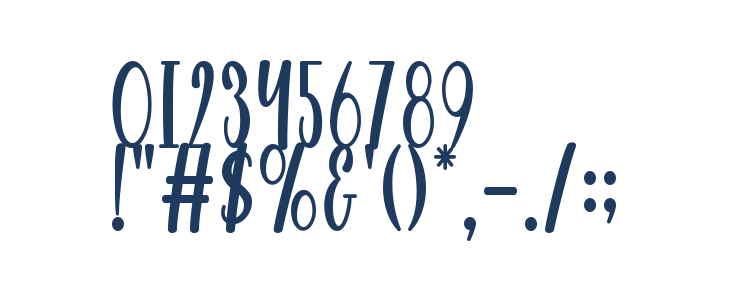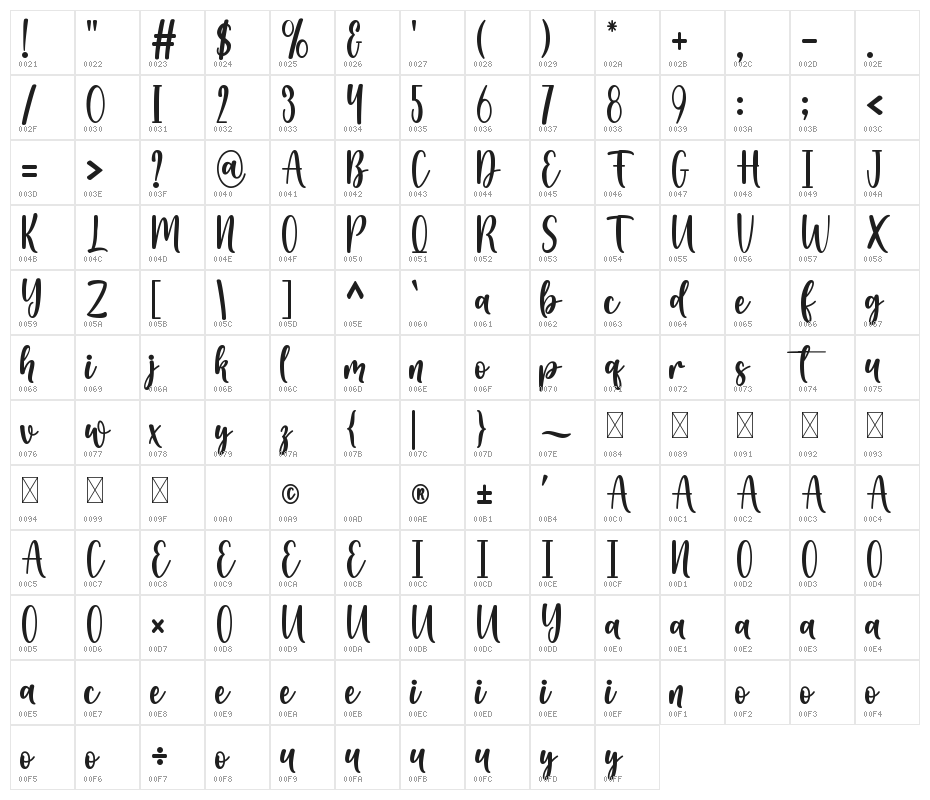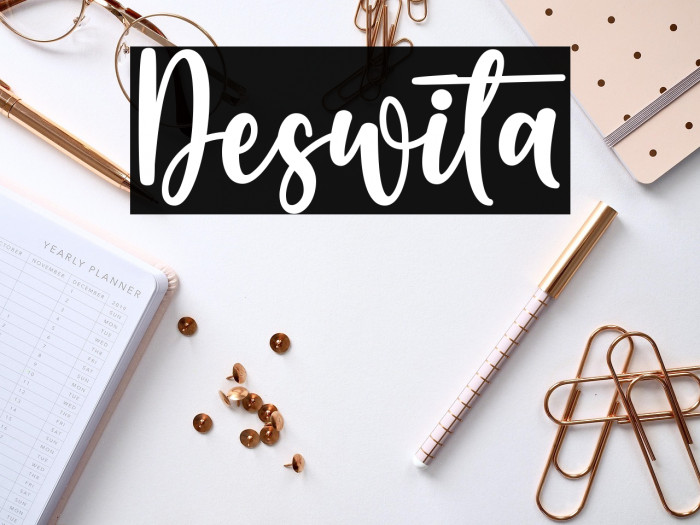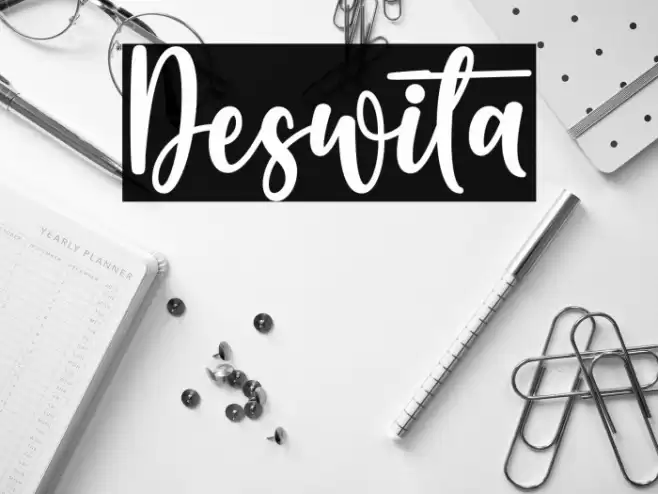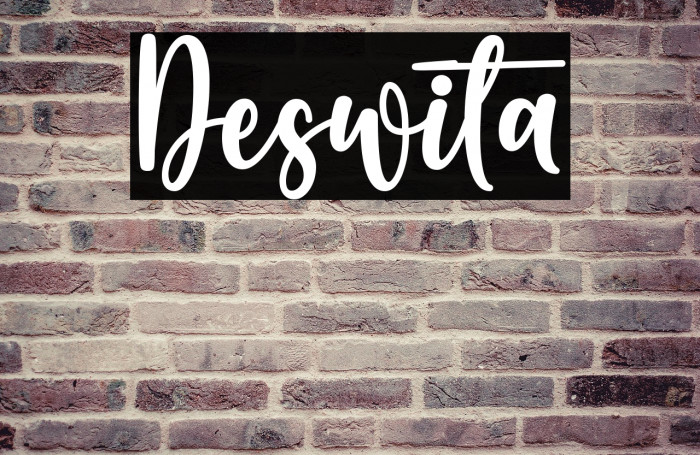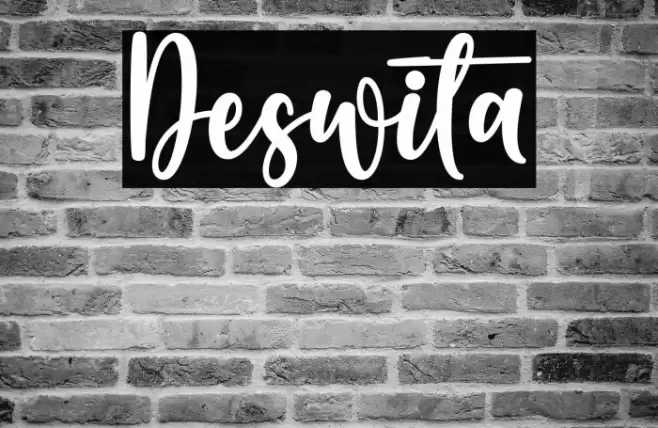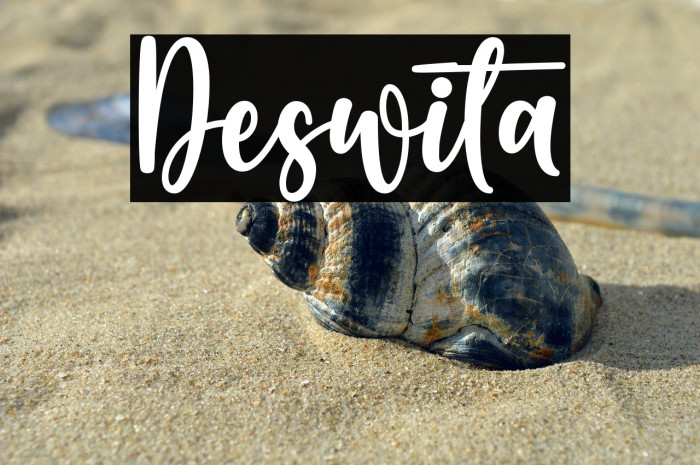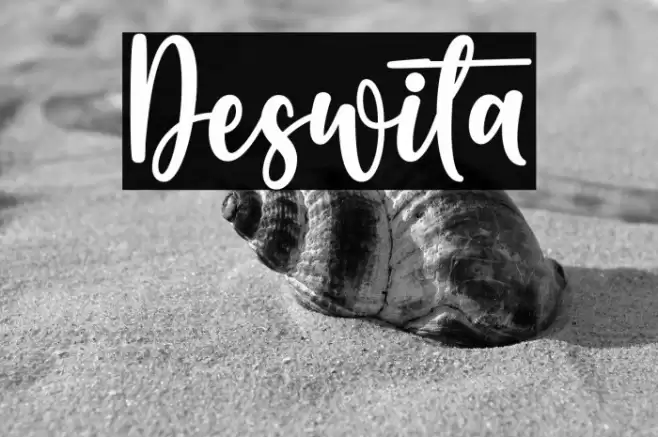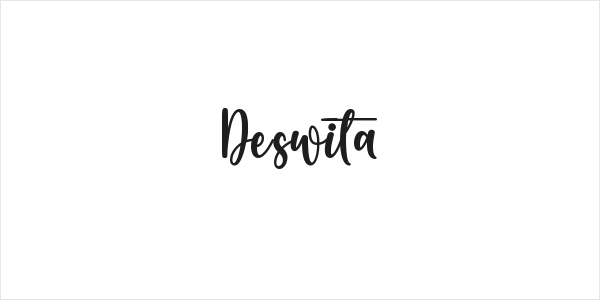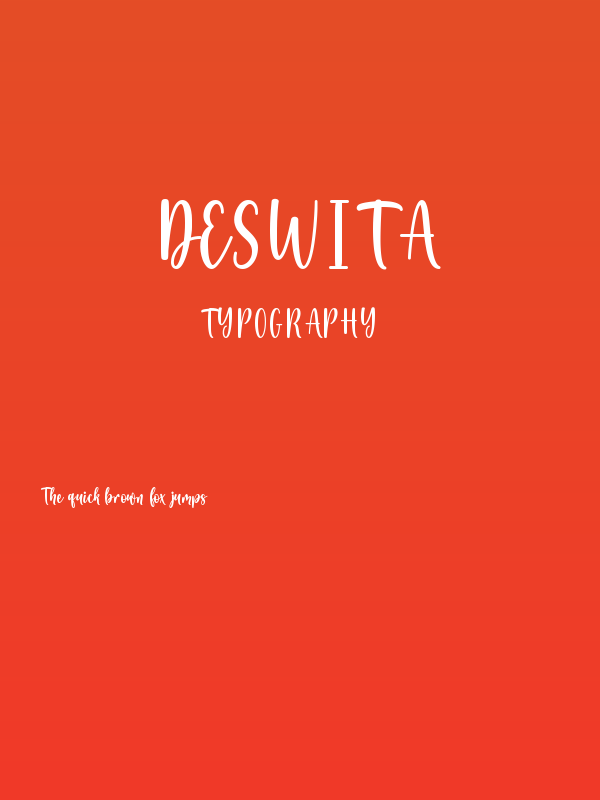
Deswita Font
Deswita Description
This font features a playful and energetic script style with a handwritten appearance. The uppercase letters are tall and slender, with a slight slant that adds a dynamic feel. The lowercase letters are more rounded and fluid, creating a harmonious flow. The numbers are bold and slightly whimsical, maintaining the playful theme. Special characters are integrated seamlessly, enhancing the font's versatility. The overall design is modern and stylish, making it suitable for a variety of creative projects.
| Use Case | Logos, Headlines, Creative projects |
| Proposed Projects | Ideal for greeting cards, invitations, branding, social media graphics, and creative posters. |